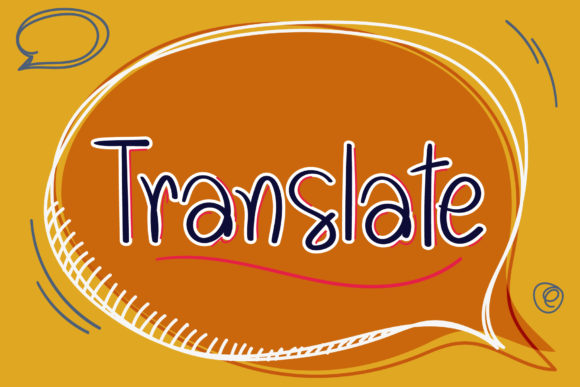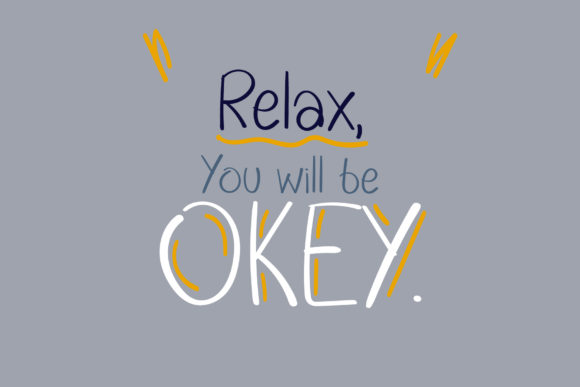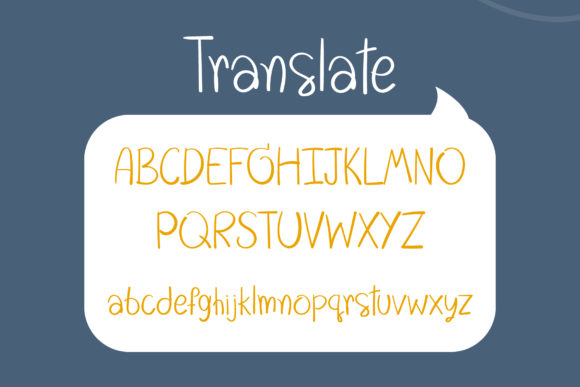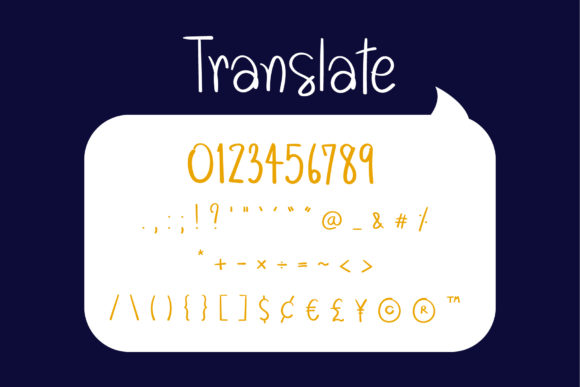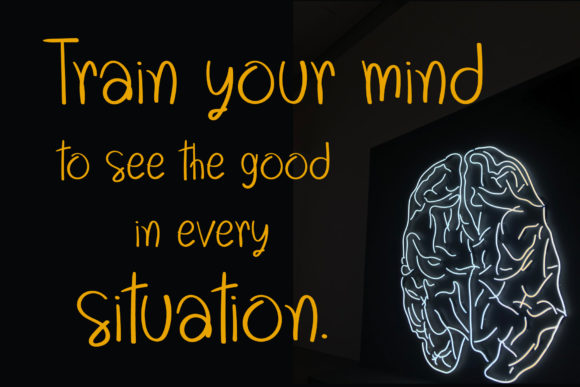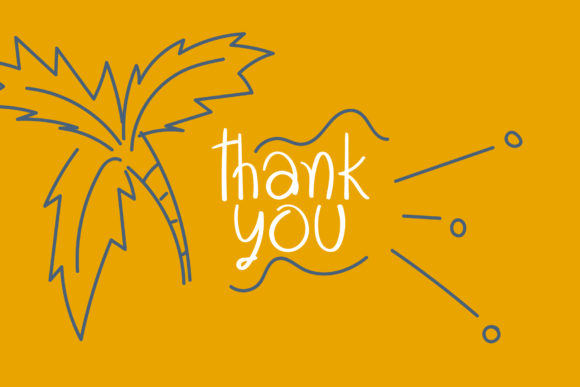
Translate Font
About Translate Font
Translate is a cute and casual handwritten font with an incredibly friendly feel. Use this amazing and unique font to bring any DIY project to life!